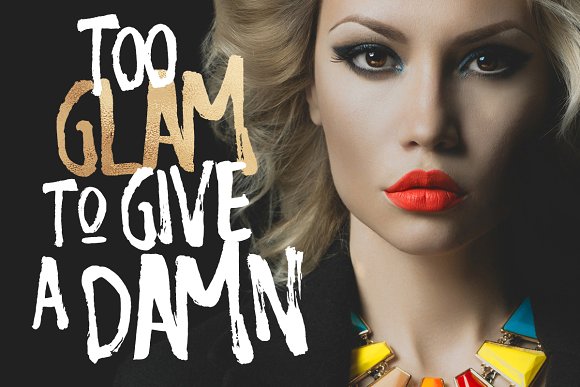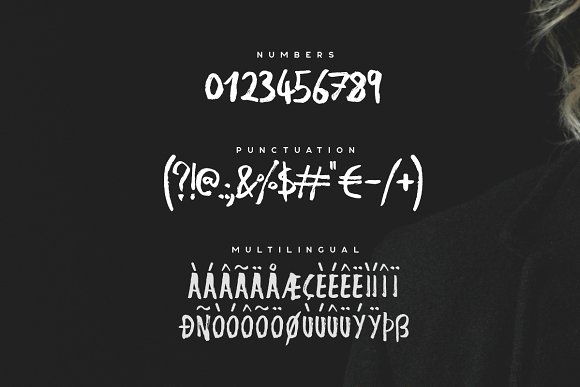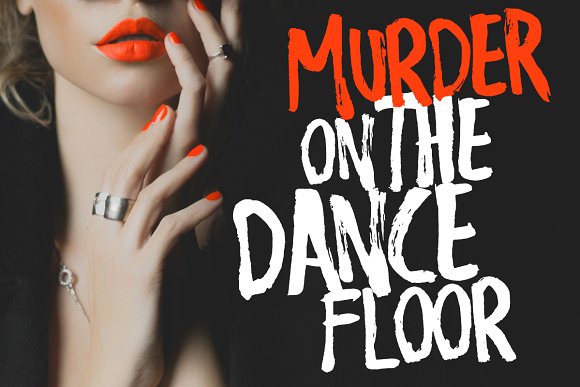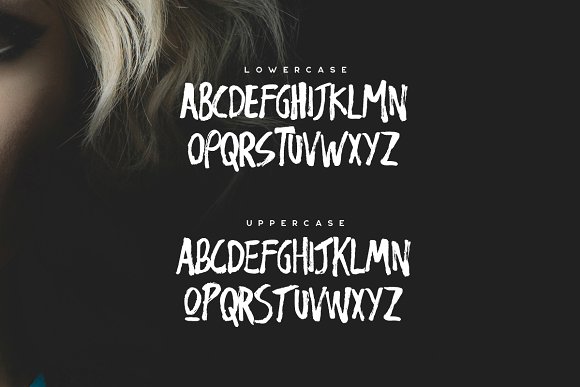
Nigma – Brush Font
Nigma is a handmade brush font with alternate letters. It includes multiple uppercase letters, numbers, punctuation and multilingual features. The boldness and the roughness of the font makes it great for quotes and titles.